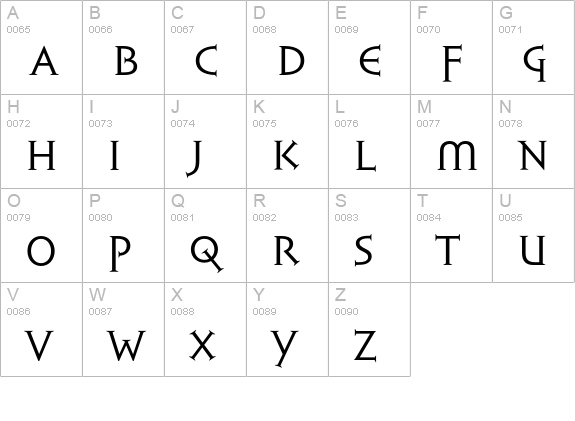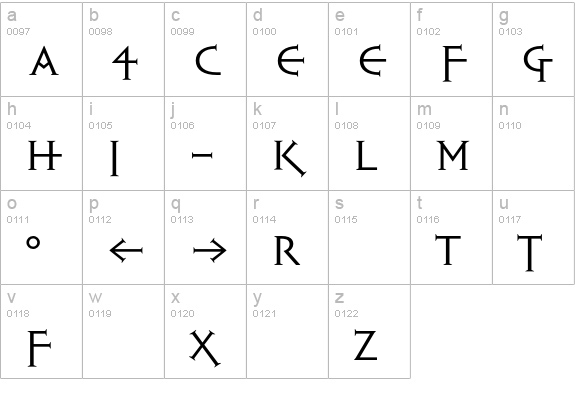
Sophia Font Details
Sophia font is a visually stunning typeface that combines elegance and modernity in a captivating way. Its sleek and sophisticated design instantly grabs attention, making it the perfect choice for a wide range of creative projects. With its beautifully crafted letterforms and graceful curves, Sophia font adds a touch of class and professionalism to any design. Whether used for branding, editorial layouts, wedding invitations, or social media graphics, this font effortlessly elevates the overall aesthetic and leaves a lasting impression. What makes Sophia font even more appealing is the fact that it is free. Yes, you read that right! This incredible font is freely available to download at FontsMarket.com, ensuring that you can enjoy its exceptional qualities without any cost. It's a rare opportunity to access a premium font like this without breaking the bank. Downloading Sophia font from FontsMarket.com is a breeze. Simply visit the website, search for Sophia font, and click the download button. In just a few seconds, you'll have this remarkable typeface ready to enhance your creative projects. So, why wait? Embrace the beauty of Sophia font and let it transform your designs into true masterpieces. Download it now for free at FontsMarket.com and unlock a world of endless possibilities.